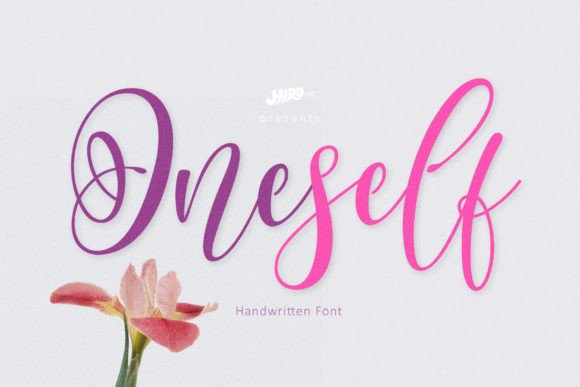
Introducing Oneself Font - The Script Font That Embraces the Essence of Elegance and Charm
In the realm of typography, Oneself Font stands out as a true masterpiece, a script font that embodies the very essence of elegance and charm. Its graceful curves and delicate lines evoke a sense of sophistication that is both timeless and captivating.
Crafted with meticulous attention to detail by the renowned font designer, HIRO.std, Oneself Font possesses an undeniable allure that draws you in and leaves a lasting impression. Its versatility knows no bounds, making it the perfect choice for a wide range of design projects, from wedding invitations and thank-you cards to quotes, greeting cards, logos, and business cards.
With Oneself Font, your words take on a new life, imbued with a sense of grace and charm that elevates the ordinary to the extraordinary. Its intricate details add a touch of refinement and sophistication, transforming your designs into works of art.
Step into the world of Oneself Font and discover a new realm of elegance and charm, where your words dance gracefully across the page, leaving an unforgettable impression on all who behold them.